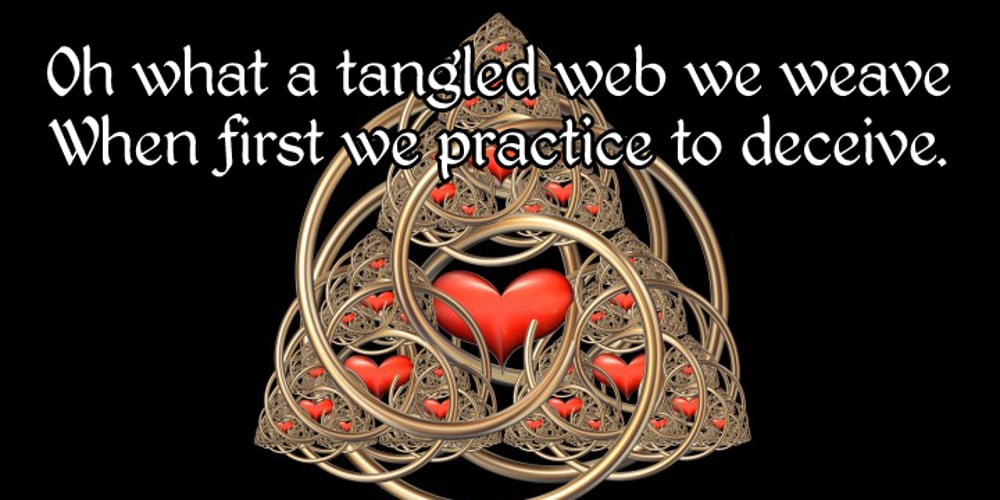
Kingthings Petrock Pro Font Family was designed by Roger S. Nelsson, Kevin King and published by CheapProFonts. Kingthings Petrock Pro contains 2 styles and family package options. For these fonts I have reworked the spacing a bit, and completely redesigned the “N” as they were calligraphically very wrong. Kevin King says: “Petrock is based on letterforms found in a small city Church in Exeter – from a display case about bell ringing. A lovely simple labeling hand, I think I’ve done it justice… Petrock Light is a lighter form of Petrock – makes both of them more usable.” ALL fonts from CheapProFonts have very extensive language support: They contain some unusual diacritic letters (some of which are contained in the Latin Extended-B Unicode block) supporting: Cornish, Filipino (Tagalog), Guarani, Luxembourgian, Malagasy, Romanian, Ulithian and Welsh. They also contain all glyphs in the Latin Extended-A Unicode block (which among others cover the Central European and Baltic areas) supporting: Afrikaans, Belarusian (Lacinka), Bosnian, Catalan, Chichewa, Croatian, Czech, Dutch, Esperanto, Greenlandic, Hungarian, Kashubian, Kurdish (Kurmanji), Latvian, Lithuanian, Maltese, Maori, Polish, Saami (Inari), Saami (North), Serbian (latin), Slovak(ian), Slovene, Sorbian (Lower), Sorbian (Upper), Turkish and Turkmen. And they of course contain all the usual “western” glyphs supporting: Albanian, Basque, Breton, Chamorro, Danish, Estonian, Faroese, Finnish, French, Frisian, Galican, German, Icelandic, Indonesian, Irish (Gaelic), Italian, Northern Sotho, Norwegian, Occitan, Portuguese, Rhaeto-Romance, Sami (Lule), Sami (South), Scots (Gaelic), Spanish, Swedish, Tswana, Walloon and Yapese.